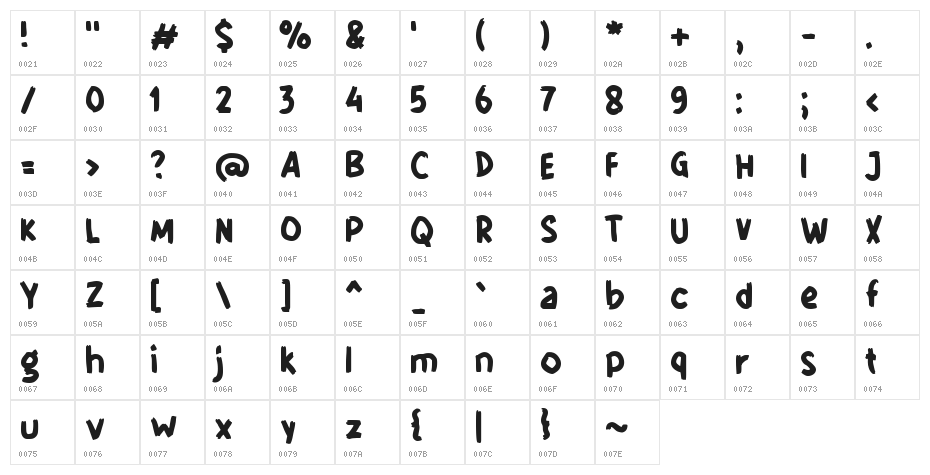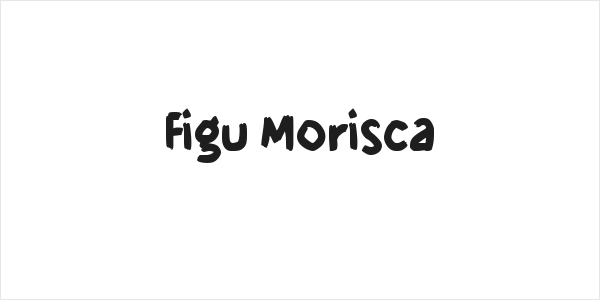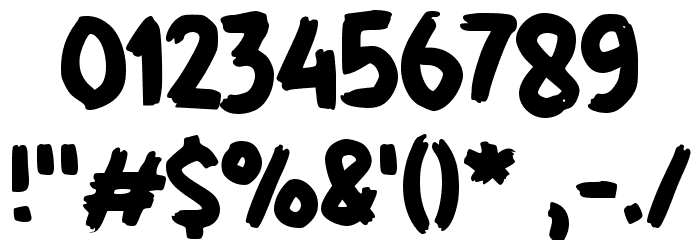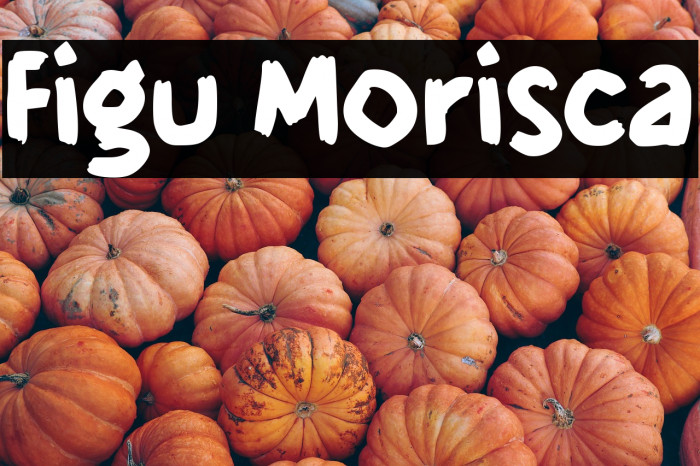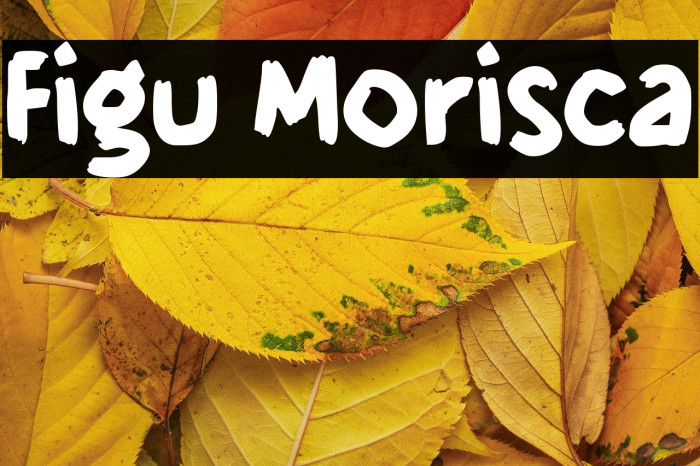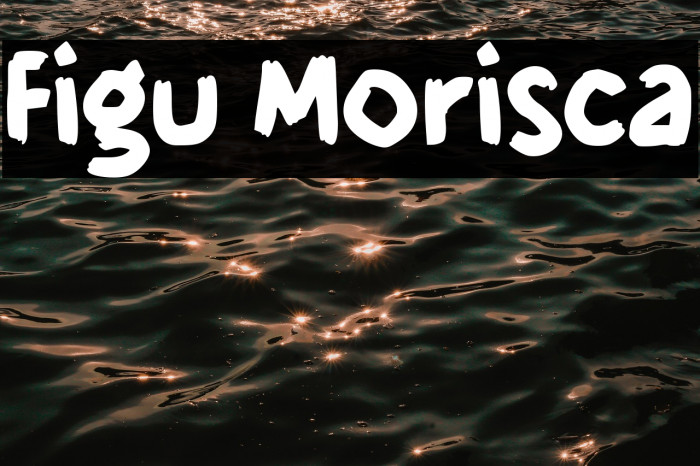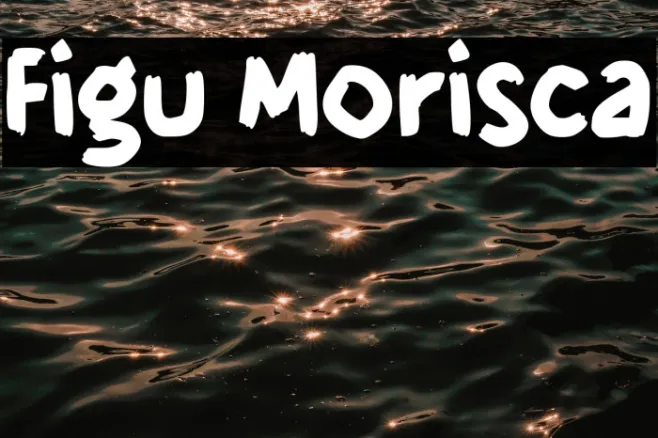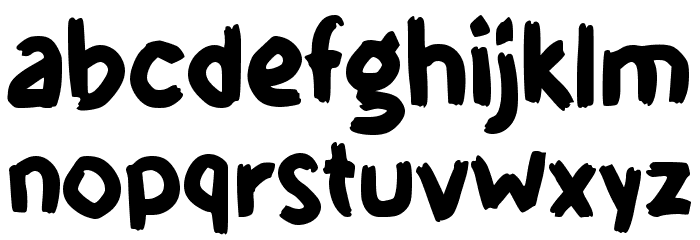
Figu Morisca Font
Figu Morisca Description
This font exhibits a bold and expressive style with a hand-drawn appearance. The characters are thick and slightly irregular, giving them a playful and dynamic feel. The uppercase and lowercase letters maintain a consistent weight, contributing to a cohesive look. The numbers and special characters follow the same design principles, ensuring uniformity across all elements. The strokes are rounded and smooth, adding to the casual and friendly aesthetic. This font is ideal for projects that require a personal touch or a creative flair.
| Proposed Projects | Ideal for posters, children's books, greeting cards, and creative branding projects. |